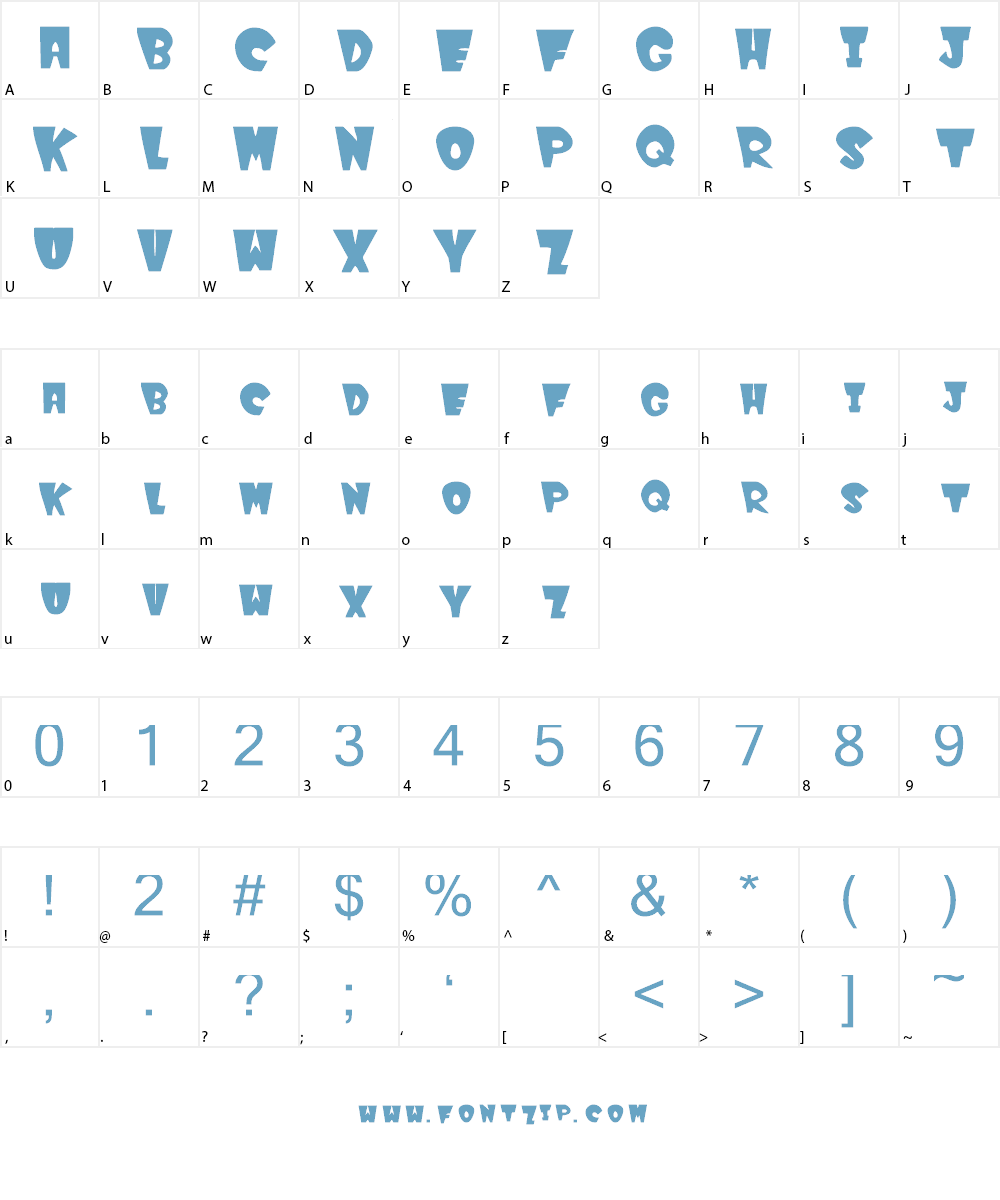
This is the first font I ever designed. I gave it its own website (also one of my first) which you might be able to find somewhere lost in the Geocities jungle. I think it is a fairly good font. There are no non-letter characters (ie its just a-z and A-Z) and the small letters are just shrunken caps. In any case it should make decent looking logos and such.
I noticed that some of the spacing between characters got a little messed up while I was changing the license information, I am working on fixing it.